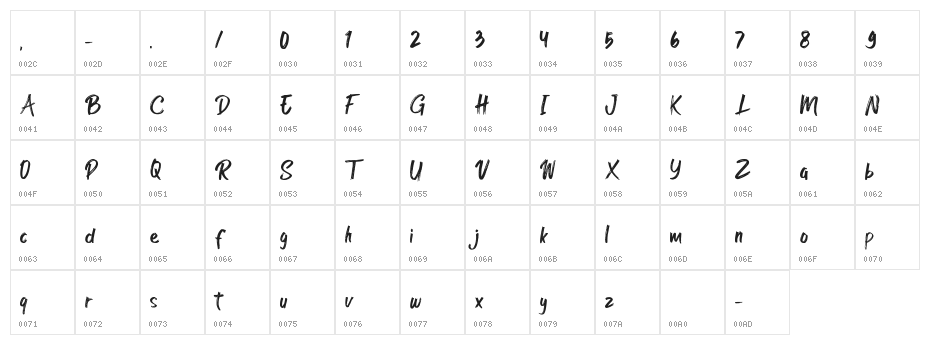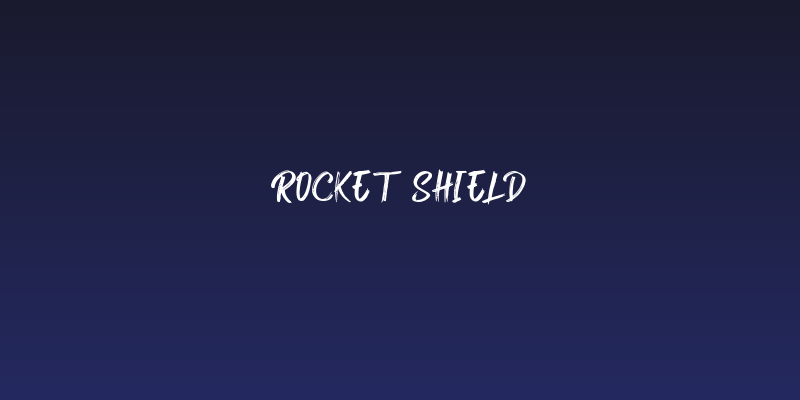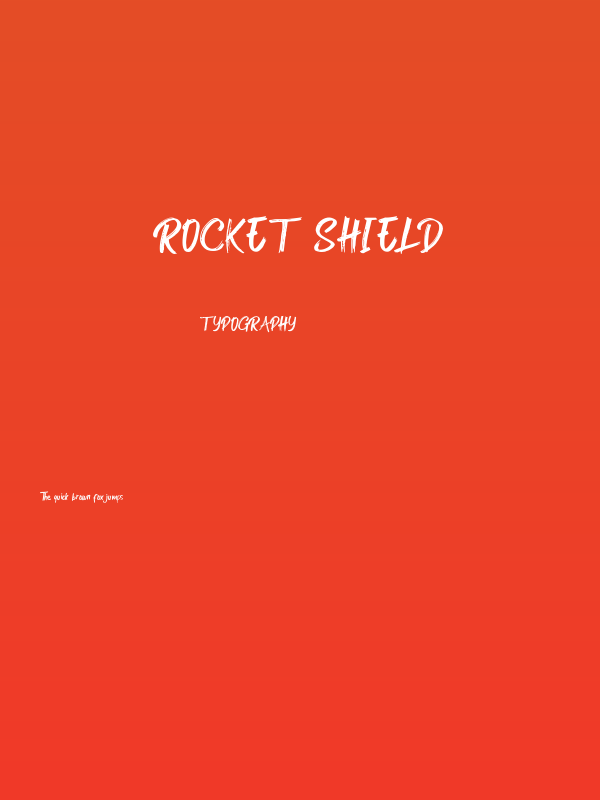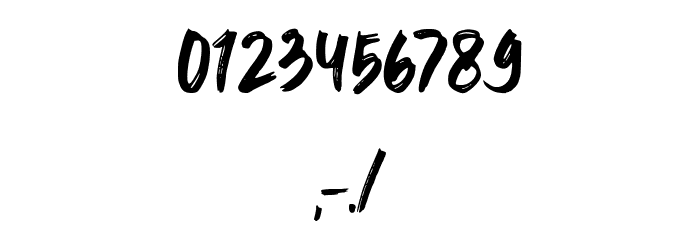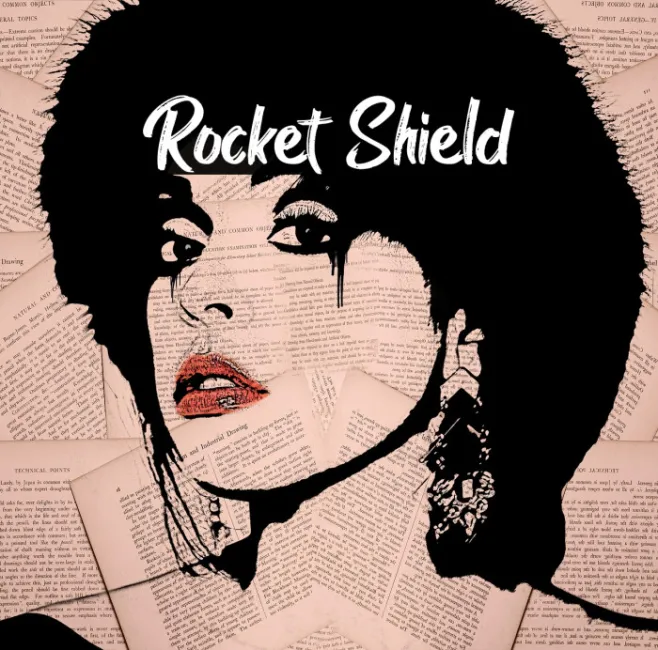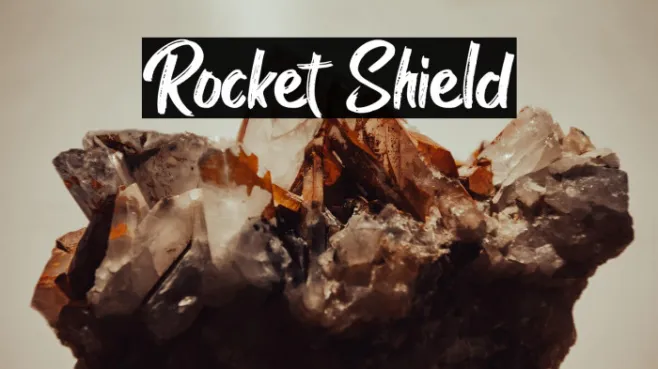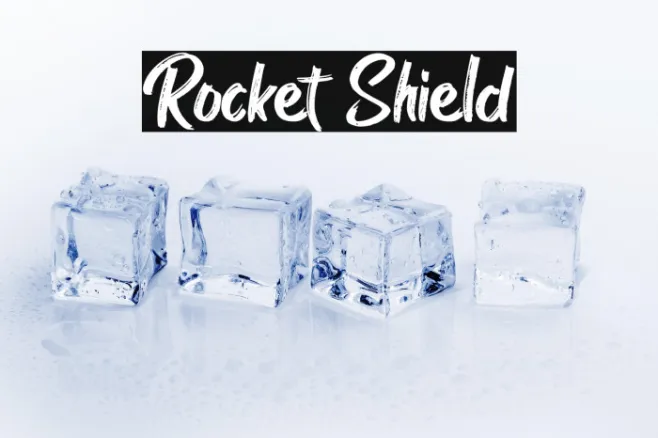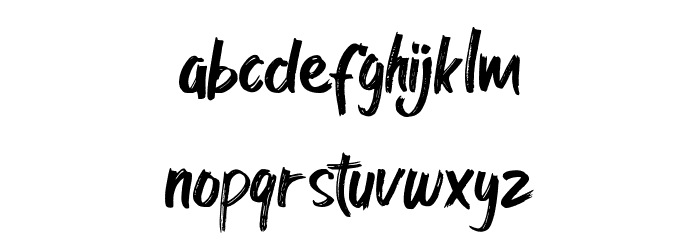
Rocket Shield Font
Rocket Shield Description
This font features a bold and dynamic brush script style, characterized by its energetic and expressive strokes. The letters have a hand-painted appearance, with varying thicknesses that add a sense of movement and vitality. The uppercase characters are particularly striking, with dramatic flourishes and a slightly slanted orientation that enhances the font's dynamic feel. The lowercase letters maintain the same lively style, offering a cohesive look across all text. The numerals and special characters are equally expressive, ensuring consistency throughout any design. This font is perfect for projects that require a bold, artistic touch.
| Proposed Projects | Ideal for branding, posters, album covers, and any creative projects needing a bold, artistic flair. |